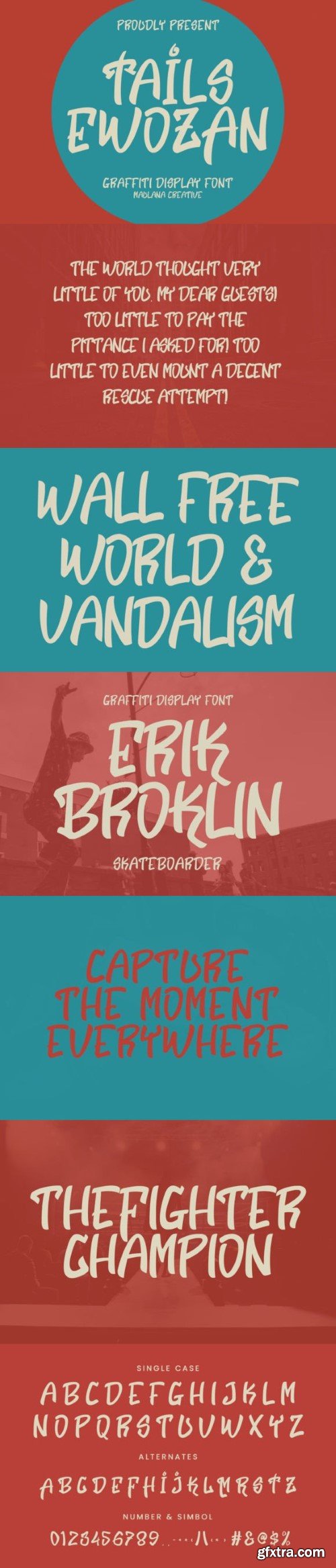
Tails Ewozan is a distinctive and dynamic typeface that captures the vibrant and expressive nature of graffiti art. This font is designed to evoke the energy, creativity, and urban flair associated with street art and graffiti culture.
You can use it for a range of creative and urban-inspired projects, such as graffiti art, poster design, logo, branding, street art events, digital graphics, social media posts, and more.